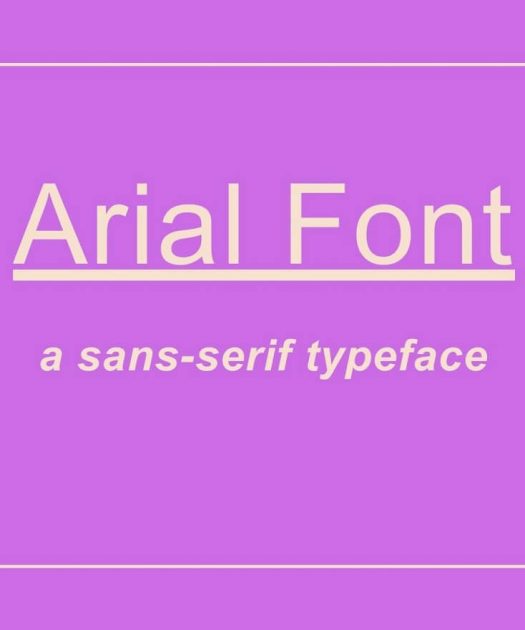
Arial Font
The Arial font is an excellent non-grotesque sans-serif typeface. It is freely available for download right here. The designers of this popular and fabulous font, Patricia Saunders and Robin Nicholas, are highly acclaimed in the design and typography industry.
Its structure is highly influenced and is almost identical to the Helvetica font. It is a greatly flexible and easy to use font and that is why it is very well known and had a great success and its wide use.
Font Information
| Name | Arial font |
| Designer | Patricia Saunders and Robin Nicholas |
| Category | Sans-Serif |
| Foundry | Monotype Corporation |
| Similar Font | Calibri and Helvetica |